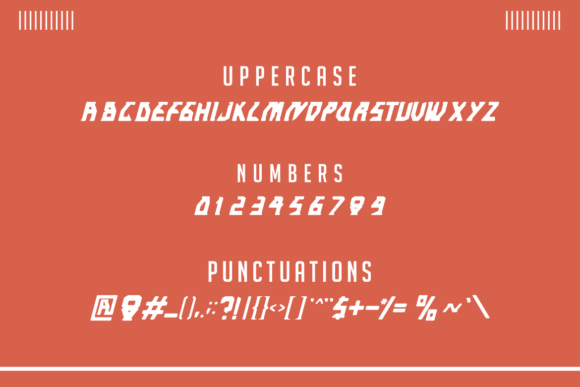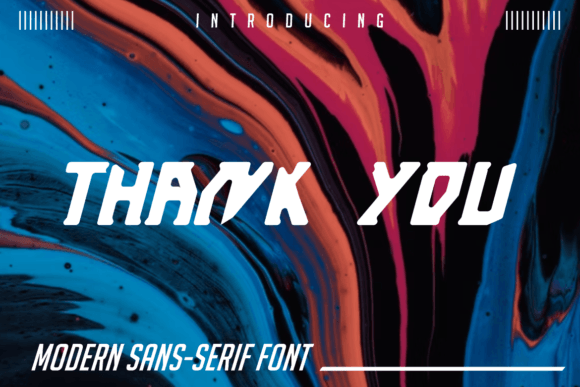
Introducing Gercep Font: The Fun and Unique Display Font You Need for Your Projects
Are you tired of using the same old fonts for your design projects? Look no further! Gercep Font is here to shake things up with its fun and unique display font style. In this article, we’ll dive into the world of Gercep Font and explore its features, benefits, and uses. Whether you’re a designer, crafter, or DIY enthusiast, you’ll love the results you get with Gercep Font.
What is Gercep Font?
Gercep Font is a display font designed to make a statement. Its unique and playful style sets it apart from other fonts, making it perfect for projects that need a bit of personality. With Gercep Font, you can add a touch of whimsy and fun to your designs, making them stand out from the crowd.
Key Features of Gercep Font
- Unique and Playful Style: Gercep Font has a one-of-a-kind design that’s sure to grab attention.
- Display Font: Gercep Font is perfect for headlines, titles, and other display text.
- Easy to Read: Despite its playful style, Gercep Font is easy to read, even at smaller sizes.
- Versatile: Gercep Font can be used for a wide range of projects, from digital designs to print materials.
Benefits of Using Gercep Font
So, why should you choose Gercep Font for your projects? Here are just a few benefits:
- Adds Personality to Your Designs: Gercep Font is the perfect way to add a bit of whimsy and fun to your designs.
- Stand Out from the Crowd: With Gercep Font, your designs will stand out from the crowd and grab attention.
- High-Quality: Gercep Font is a high-quality font designed to deliver great results.
Uses for Gercep Font
Gercep Font is versatile and can be used for a wide range of projects, including:
- Digital Designs: Use Gercep Font for social media graphics, blog posts, and website headers.
- Print Materials: Gercep Font is perfect for print materials like brochures, flyers, and posters.
- Crafting Projects: Add a personal touch to your crafting projects, like scrapbooking and card making.
- Signage: Use Gercep Font for eye-catching signage that grabs attention.
Tips for Using Gercep Font
Here are a few tips for getting the most out of Gercep Font:
- Use it Sparingly: Gercep Font is a display font, so use it sparingly to make a bigger impact.
- Pair it with Other Fonts: Pair Gercep Font with other fonts to create a unique and interesting contrast.
- Experiment with Colors: Gercep Font looks great in a wide range of colors, so don’t be afraid to experiment.
In conclusion, Gercep Font is a fun and unique display font that’s perfect for designers, crafters, and DIY enthusiasts. With its playful style, ease of use, and versatility, Gercep Font is sure to become a favorite in your font collection. So, why wait? Add Gercep Font to your projects today and see the amazing results for yourself!
Gercep is a fun and unique display font. Add it confidently to your projects, and you will love the results.